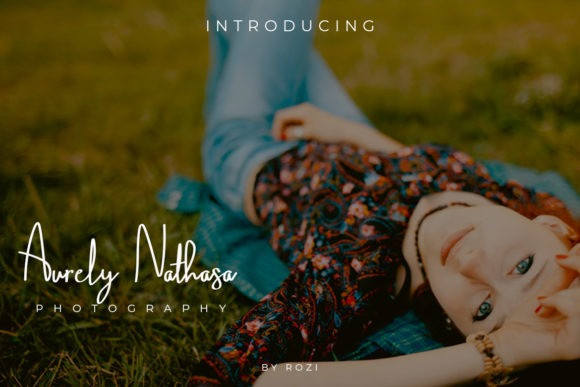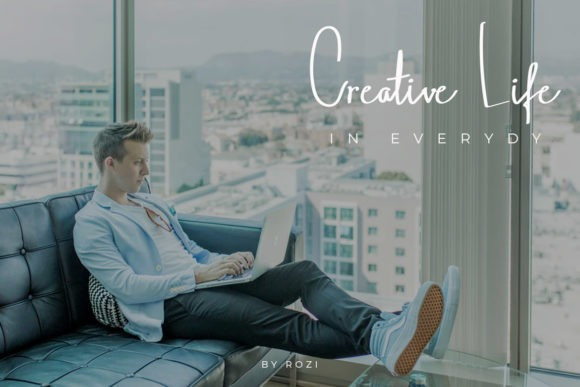
Bagnolhet Script Font
Introduction Bagnolhet Font is a modern font suitable for logo design and branding. Great design, memorable, minimalistic and of course iconic. with all the ingredients that I mentioned above can help you increase sales or expand your brand’s reach. and I have a font product that you can use to design packaging, logos, magazines, landing pages, flyers, and more. If you want, please visit the website by the link and there is a 50% discount. The fonts downloaded through the listing are for personal use only.